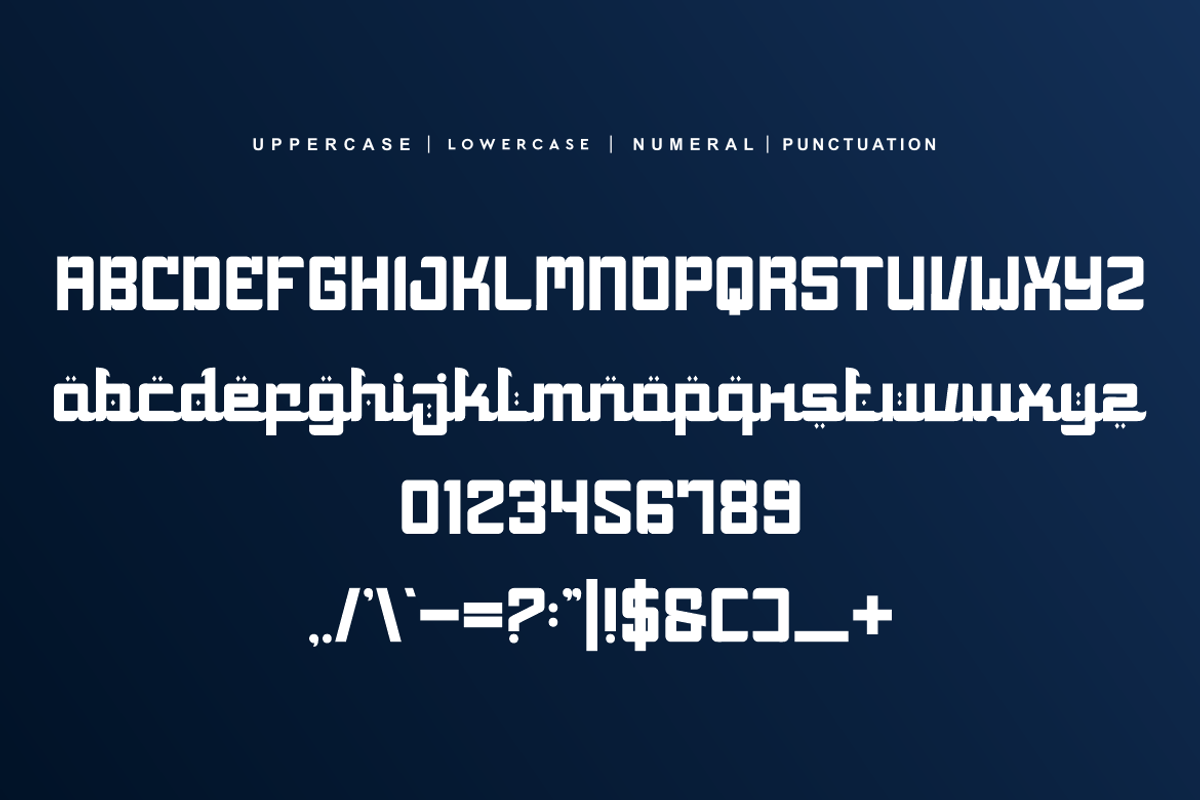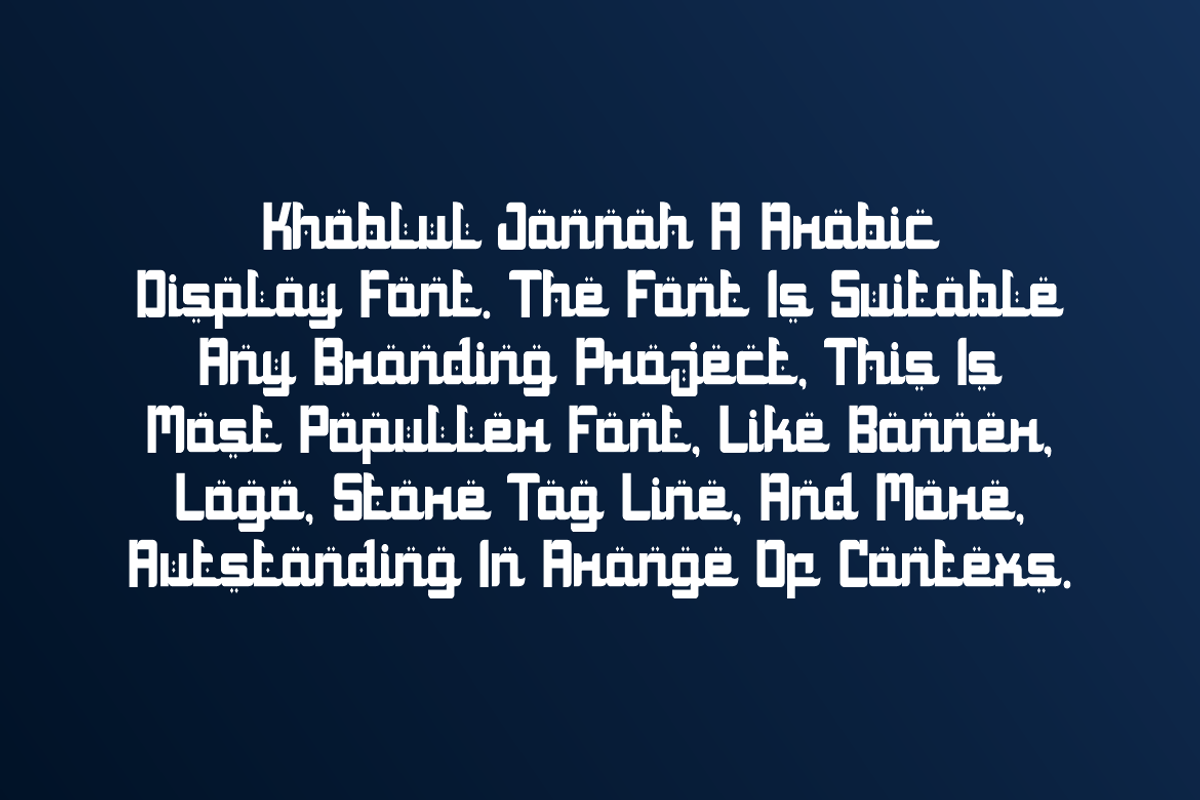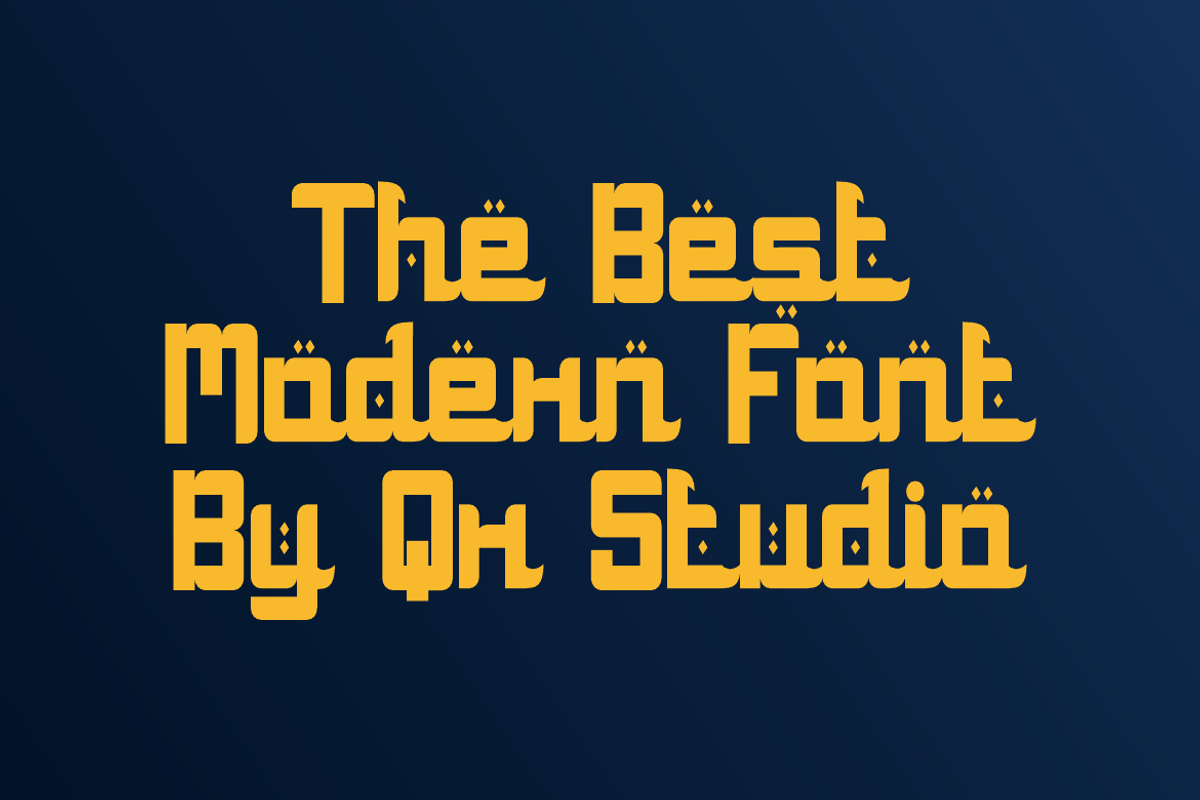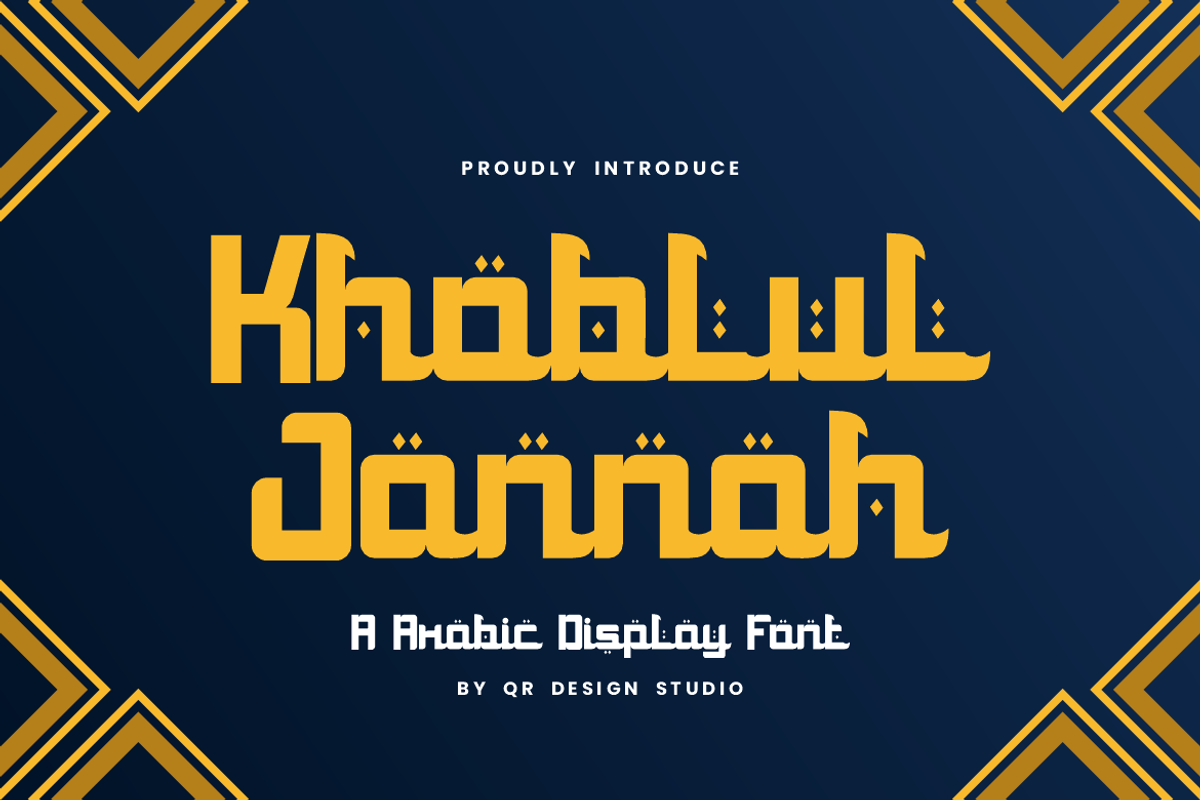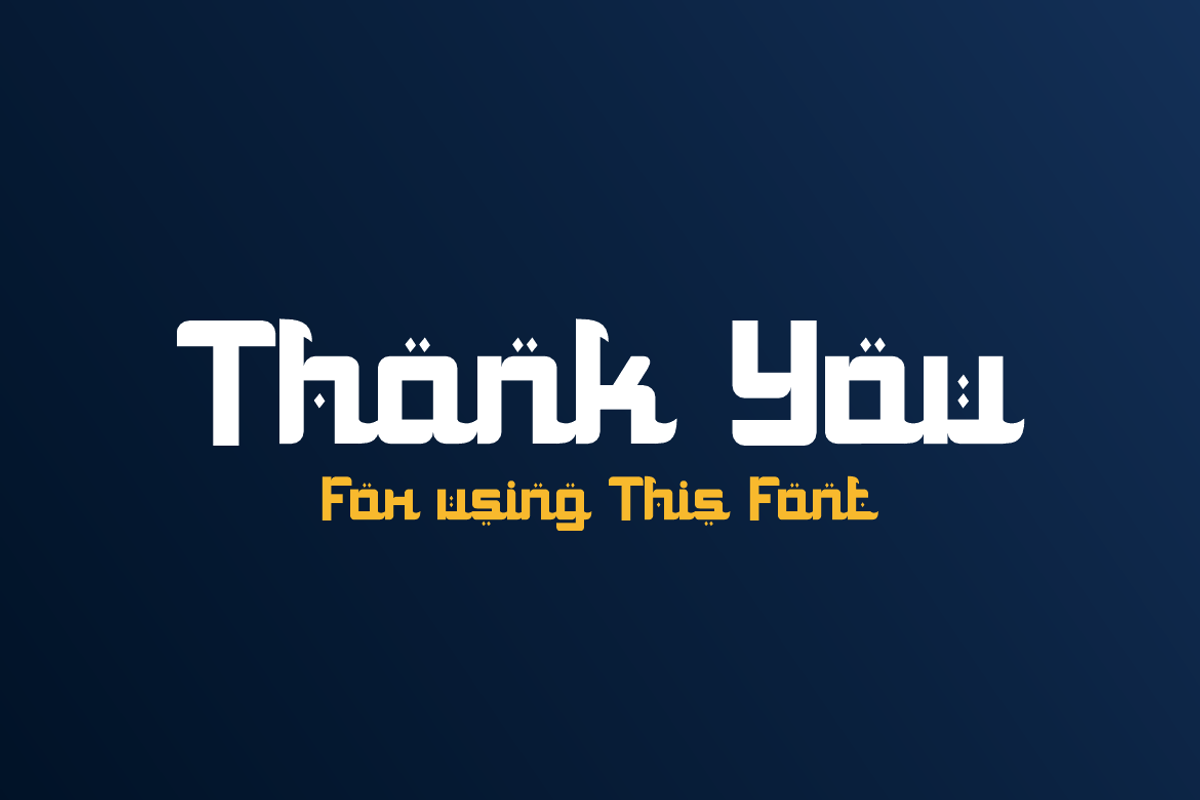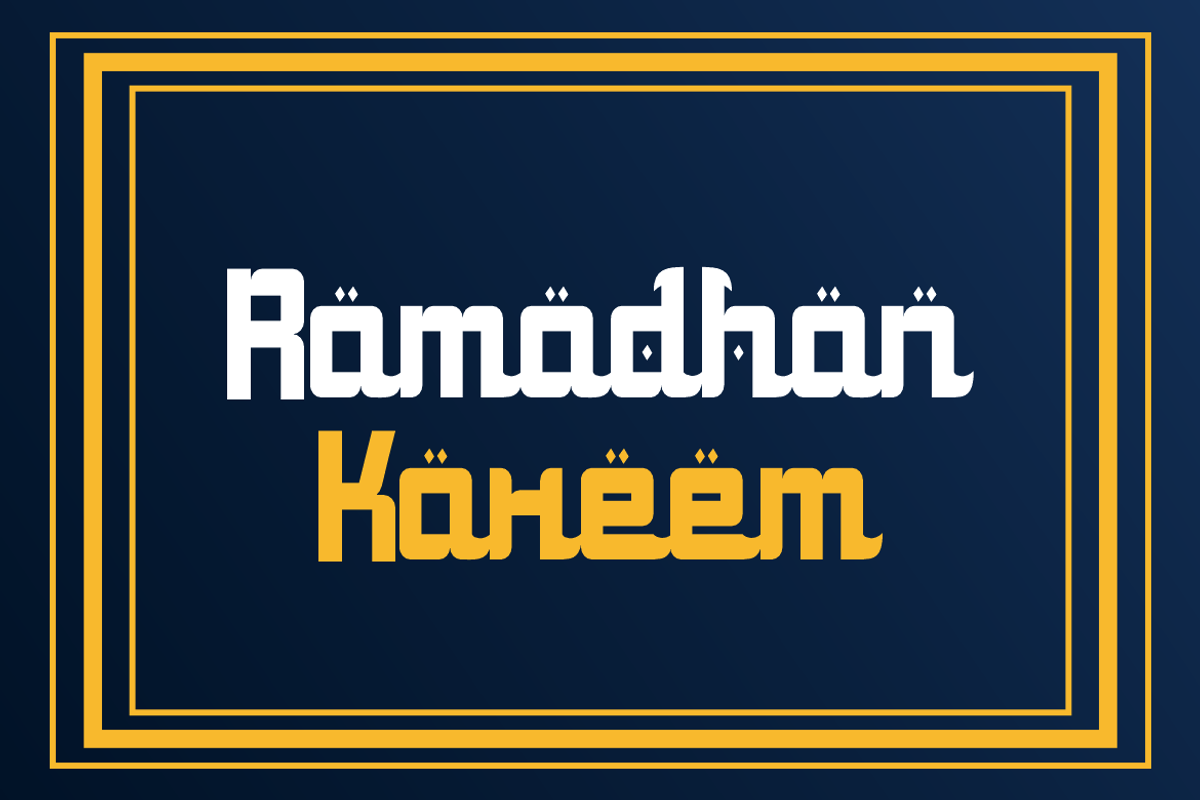
Khoblul Jannah - Arabic Font
Khoblul Jannah Font is a decorative and authentic display font. The font is suitable for any branding project like arabic, poster, logo, and many more. Outstanding in a wide range of contexts.